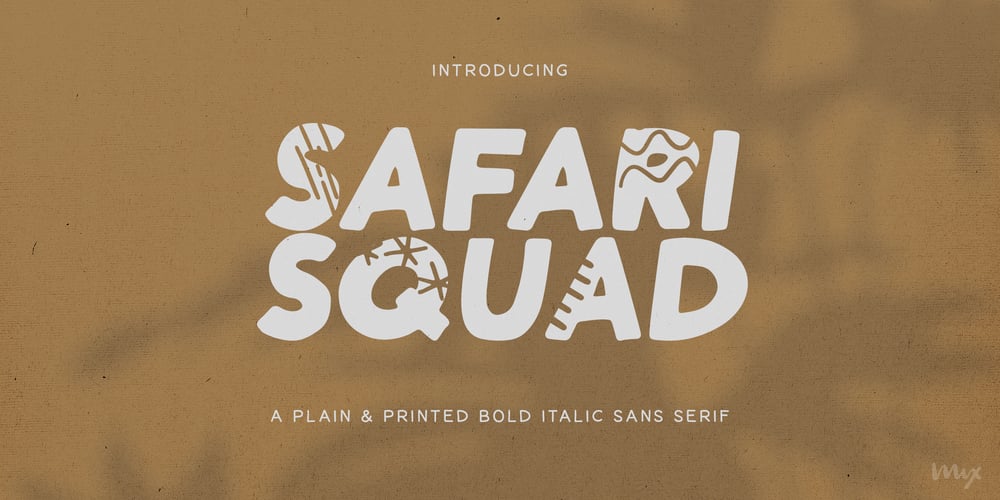
Safari Squad Font Family was designed by Mikko Sumulong and published by Mix Fonts. Safari Squad contains 2 styles and family package options. Introducing SAFARI SQUAD, the bold and stylish font perfect for making a statement. With its solid and italicized design, this font is perfect for creating impactful and attention-grabbing headlines and logos. The unique selling point of SAFARI SQUAD is the quirky stylized animal print alternates for the uppercase and lowercase letters, which add a touch of personality and originality to your designs. These alternates give you the flexibility to switch up your design and make it stand out even more.For those who can’t access the alternates, SAFARI SQUAD SUB is the same font but using the alternates as the default, making it accessible for everyone. SAFARI SQUAD SUB also offers the same solid and italicized design, perfect for creating impactful and memorable designs that will leave a lasting impression.SAFARI SQUAD and SAFARI SQUAD SUB are perfect for a wide range of uses, from social media posts and website design to marketing materials and publishing projects. These versatile fonts are sure to make your content stand out, whether you’re creating a bold and striking headline or a unique and eye-catching logo. Make your designs stand out with SAFARI SQUAD and SAFARI SQUAD SUB, the bold and unique fonts that’s sure to elevate your design game. SAFARI SQUAD comes with the following glyphs: ABCDEFGHIJKLMNOPQRSTUVWXYZ abcdefghijklmnopqrstuvwxyz 0123456789 !@#$%^&*()`~♥✿•· ÷×+−±≈=≠≥≤[]<>:;’”,.|/?{}“”‘’-–—_ …‚„©®™‹›«»°¹²³¡¿₱¢€£¥¶§† ÁÀÂÄȦÃÅĂĀĄÆĆĈČĊÇÐĐÉÈÊËĖĒĘḞǴĜǦḠĠĤȞḦḢ ÍÌÎÏĪĮĴḰǨŁḾṀŃÑŇÓÒÔÖÕŌŐØŒṔṖŔŘṘŚŜŠŞȘŤṪȚ ÚÙÛÜŨŮŬŪŰŲẂẀŴẄẆÝŶŸŹẐŽŻƵ áàâäȧãåăāąæćĉčċçðđéèêëėēęḟǵĝǧḡġĥȟḧḣ ıíìîïīįĵḱǩłḿṁńñňóòôöõōőøœṕṗŕřṙśŝšşșťṫț úùûüũůŭūűųẃẁŵẅẇýŷÿźẑžżƶ SAFARI SQUAD SUB comes with the following glyphs: ABCDEFGHIJKLMNOPQRSTUVWXYZ abcdefghijklmnopqrstuvwxyz 0123456789 !@#$%^&*()`~♥✿•· ÷×+−±≈=≠≥≤[]<>:;’”,.|/?{}“”‘’-–—_ …‚„©®™‹›«»°¹²³¡¿₱¢€£¥¶§† ÁÀÂÄȦÃÅĂĀĄÆĆĈČĊÇÐĐÉÈÊËĖĒĘḞǴĜǦḠĠĤȞḦḢ ÍÌÎÏĪĮĴḰǨŁḾṀŃÑŇÓÒÔÖÕŌŐØŒṔṖŔŘṘŚŜŠŞȘŤṪȚ ÚÙÛÜŨŮŬŪŰŲẂẀŴẄẆÝŶŸŹẐŽŻƵ áàâäȧãåăāąæćĉčċçðđéèêëėēęḟǵĝǧḡġĥȟḧḣ ıíìîïīįĵḱǩłḿṁńñňóòôöõōőøœṕṗŕřṙśŝšşșťṫț úùûüũůŭūűųẃẁŵẅẇýŷÿźẑžżƶ